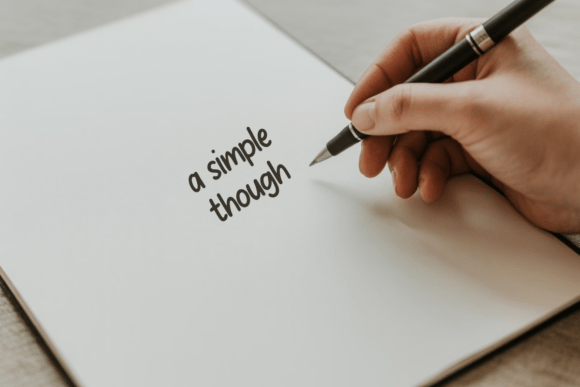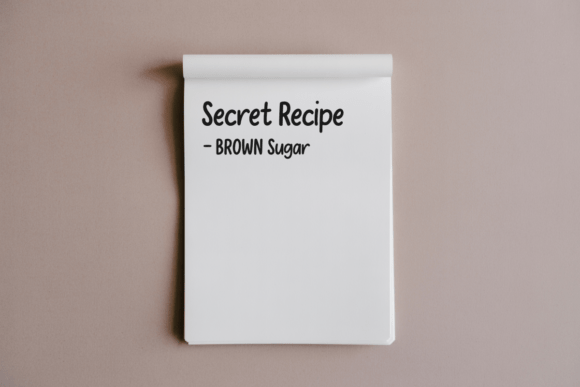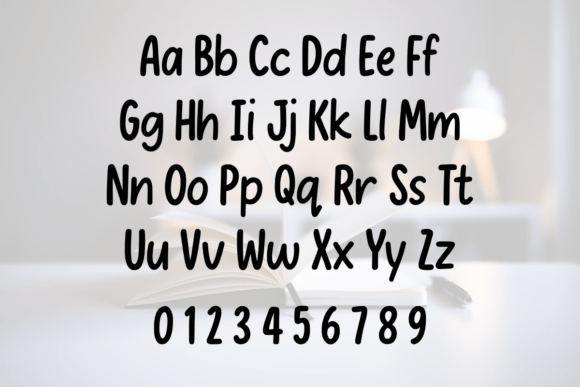
Unlocking the Magic of Handwritten Charm
As a designer, there’s nothing quite like the feeling of finding the perfect font to bring a project to life. It’s that moment when the words start to flow, and the design begins to take shape. For me, it was a children’s book project that required a font that was both fun and approachable. That’s when I stumbled upon the Brown Hand Written Font, and I knew I had found my match.
This smooth, rounded handwritten font is a game-changer for designers looking to add a touch of warmth and personality to their projects. With its playful curves and casual flow, the Brown Hand Written Font is perfect for everything from children’s books to greeting cards, product packaging, and more.
Whether you’re working on a digital or print project, the Brown Hand Written Font is a valuable addition to your design toolkit. Its readability and charm make it a go-to for designers who want to keep things light and cheerful.
Brown Hand Written Font Key Features
- Unique Characteristics: The font features a unique, handwritten style with varying line widths and subtle texture, giving it a natural and organic feel.
- Font Style: Casual, handwritten, script
Brown Hand Written Font Review
Overall, I’m quite impressed with the Brown Hand Written Font. ✨ It has a unique, warm, and inviting feel that makes it perfect for designs that require a personal touch. The font’s imperfections and subtle variations in stroke width add a level of authenticity that’s hard to replicate with more polished fonts.
Here are some of the things that I think work well:
- ✨ Unique, hand-written feel that’s perfect for creative projects.
- ✨ High level of customization options to tailor the font to your specific needs.
- ✨ Suitable for a wide range of applications, from logos to product labels.
- ⚠️ May not be suitable for formal or corporate designs where a more polished look is required.
- ⚠️ Can be difficult to read at small font sizes or in certain contexts.
- ⚠️ Some users may find the font’s imperfections distracting or unprofessional.
Overall, I think the Brown Hand Written Font is a great choice for designers who want to add a touch of personality to their projects. While it may not be suitable for every design scenario, its unique look and high level of customization make it a valuable addition to any designer’s toolkit.
The Brown Hand Written font is ideal for:
- Crafting invitations and wedding stationery.
- Designing branding materials and logos.
- Creating artwork and illustrations.
Alternatives to Brown Hand Written Font
Great Vibes is a modern, handwritten font with a touch of elegance. It’s perfect for creating a relaxed, friendly atmosphere in designs such as invitation cards, social media graphics, or advertising materials. Compared to Brown Hand Written Font, Great Vibes has a more refined and polished look, making it suitable for a wider range of applications.
Carolyna Pro is a high-end, handwritten font with a sophisticated and luxurious feel. It’s ideal for luxury branding, high-end fashion, and jewelry designs. While Brown Hand Written Font has a more rustic, earthy feel, Carolyna Pro has a more refined and exclusive look, making it suitable for high-end applications.
Playfair Display is a elegant, handwritten font with a touch of sophistication. It’s perfect for creating a luxurious and high-end atmosphere in designs such as branding, advertising, or editorial content. Compared to Brown Hand Written Font, Playfair Display has a more refined and polished look, with a focus on elegance and sophistication.